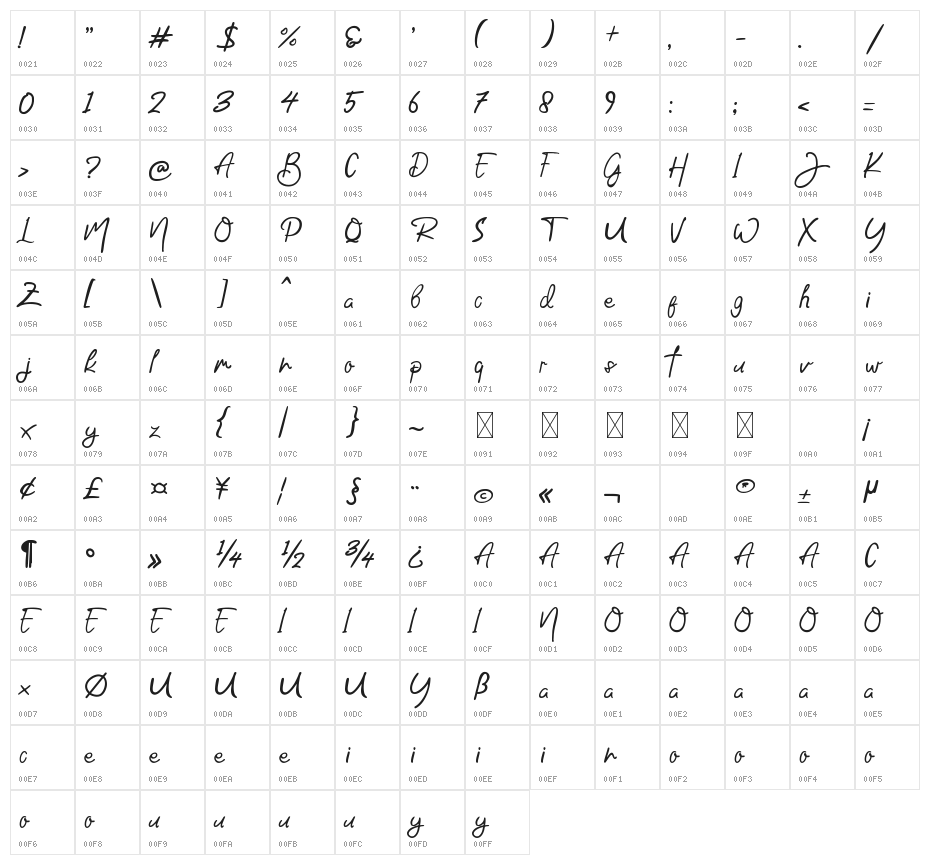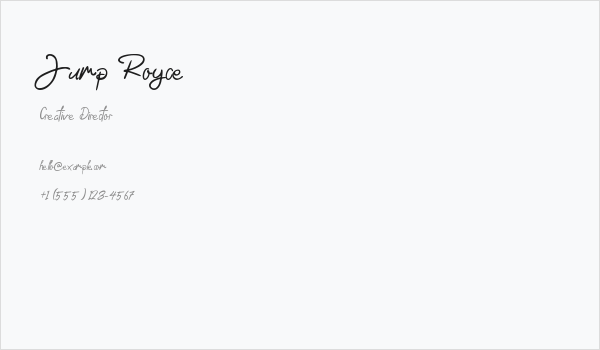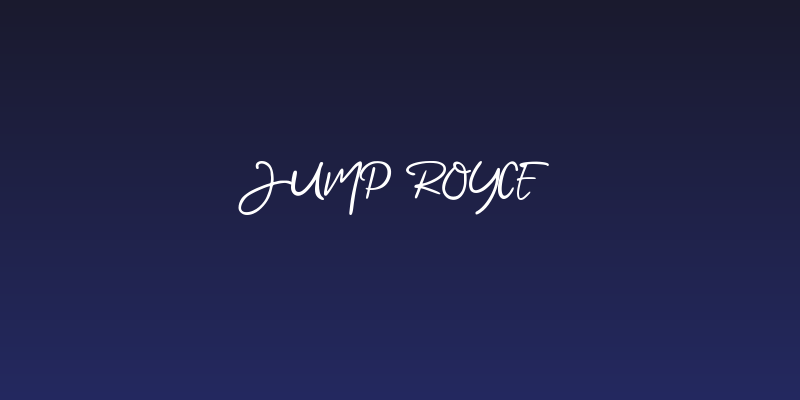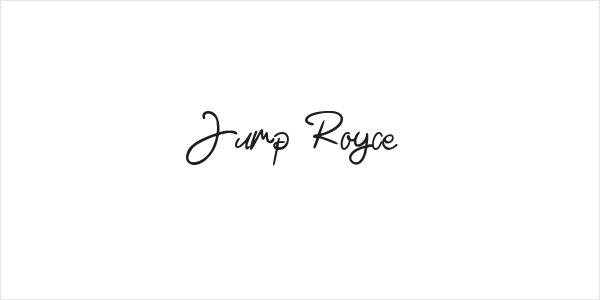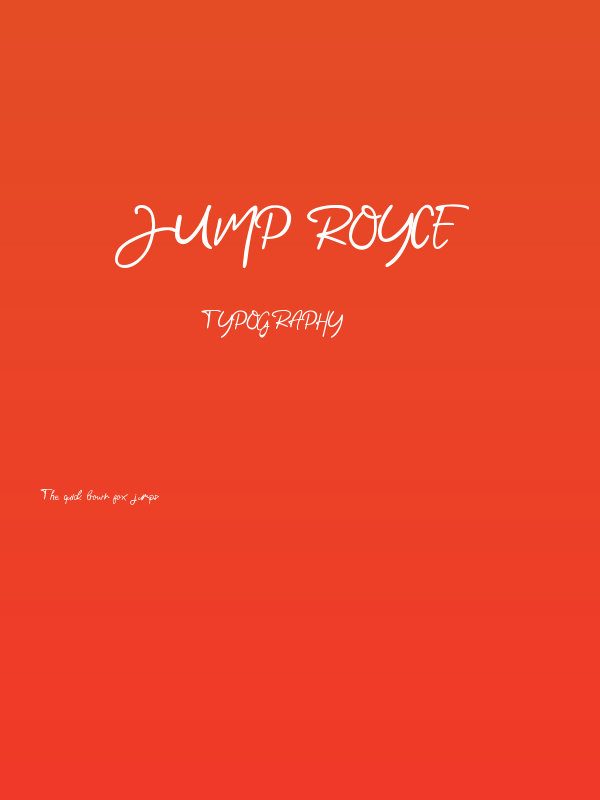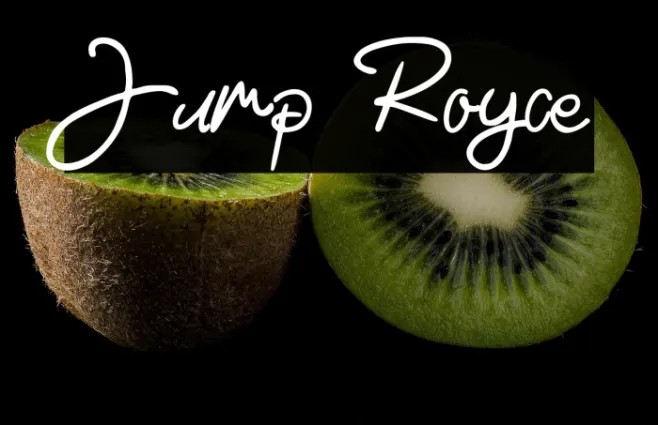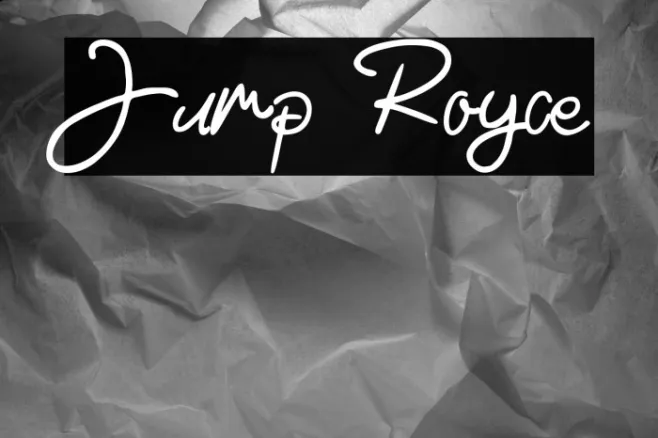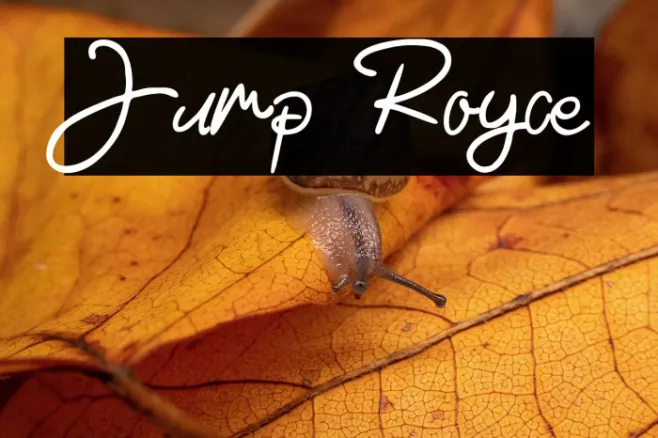
Jump Royce Font
Jump Royce Description
This font exudes a lively and dynamic energy, characterized by its fluid, cursive style that mimics natural handwriting. The letters are interconnected with smooth, flowing strokes, giving it a sense of movement and elegance. The uppercase letters are bold and prominent, while the lowercase letters maintain a consistent rhythm, enhancing readability. The numerals and special characters are crafted with the same attention to detail, ensuring a cohesive appearance across all elements. The overall design is both artistic and approachable, making it suitable for a variety of creative applications.
| Use Case | Logos, Invitations, Creative projects |
| Proposed Projects | Ideal for invitations, greeting cards, branding, and creative projects that require a personal touch. |